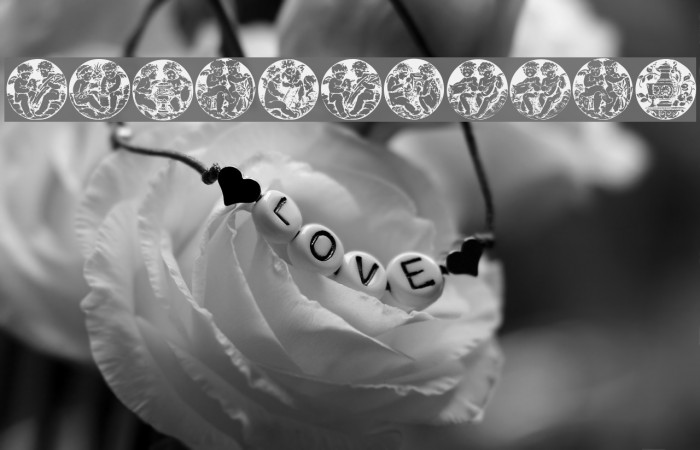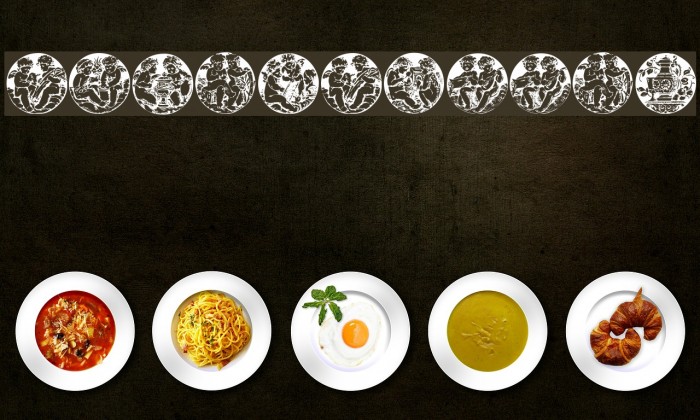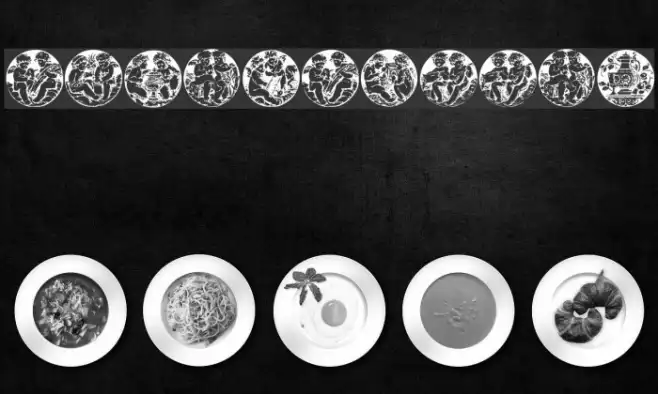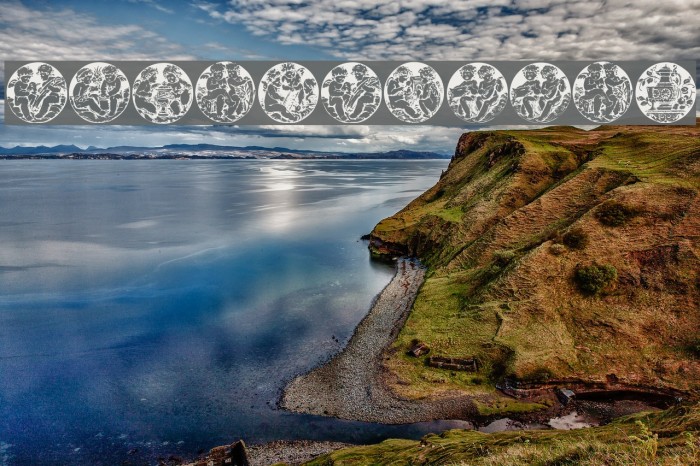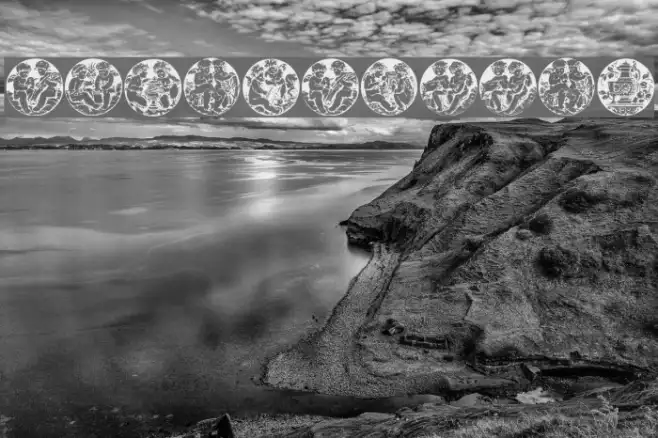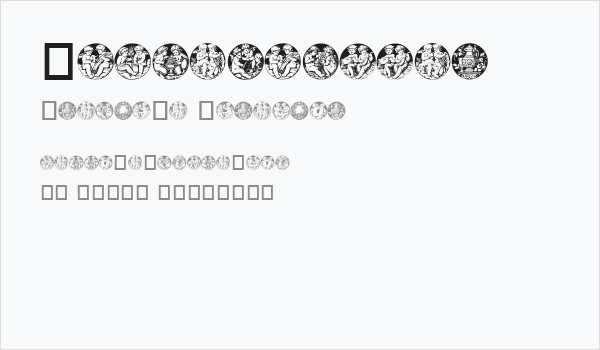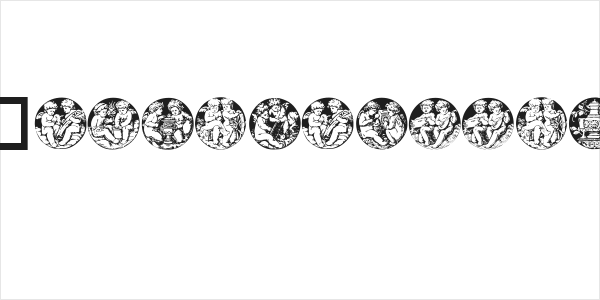
Engleknapper Font
Engleknapper Description
A decorative font featuring detailed circular illustrations of cherubs or angels in place of standard letterforms, with some characters represented as bold, thick-outlined squares. The glyphs are highly ornamental and not suitable for body text, focusing on visual impact rather than legibility.
| Overall Style | Decorative, Vintage |
| Use Case | Logos, Headlines, Decorative elements |
| Proposed Projects | Greeting cards, invitations, decorative headings, art projects, vintage-themed designs. |